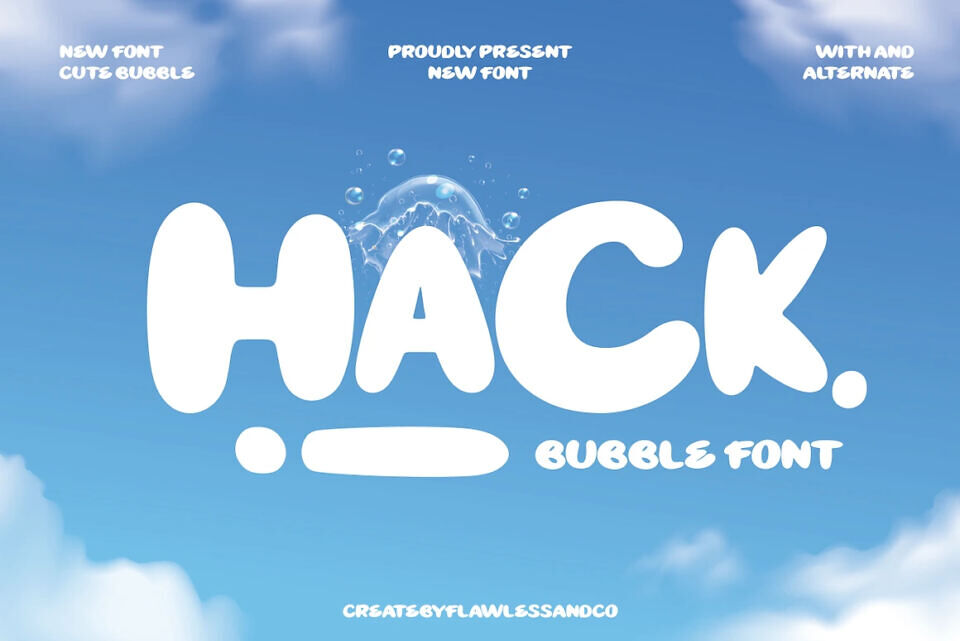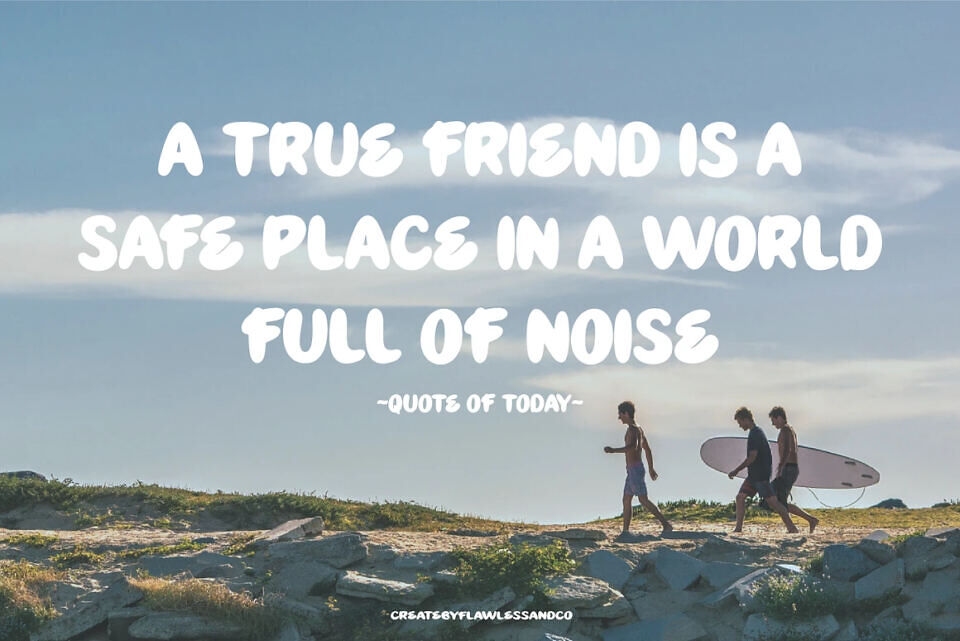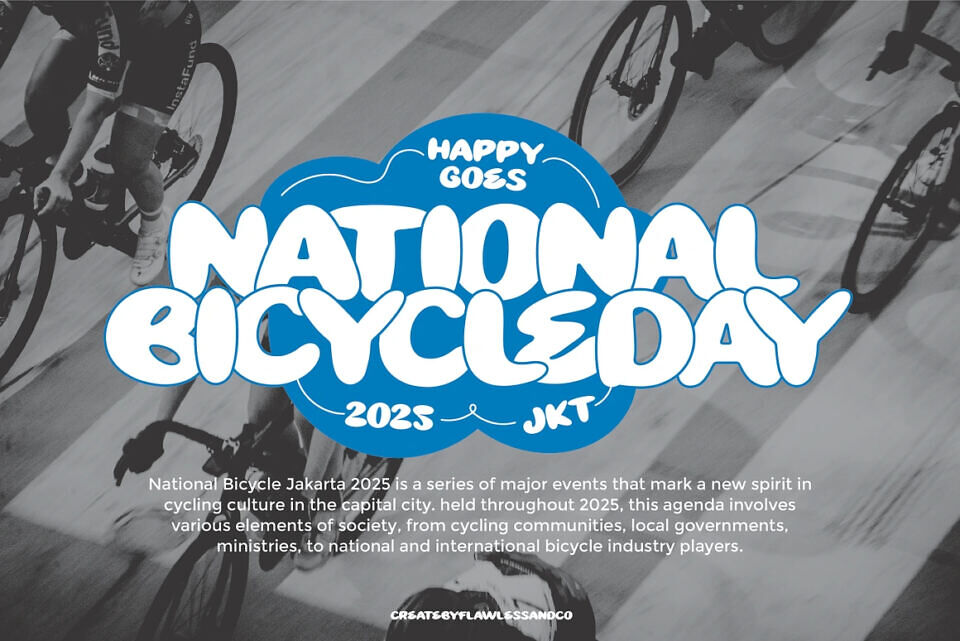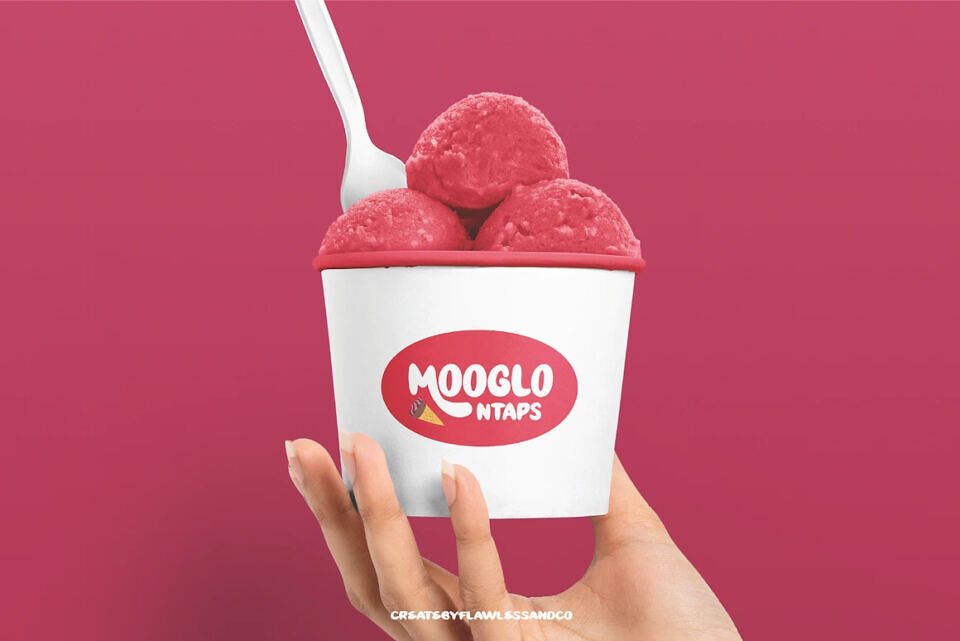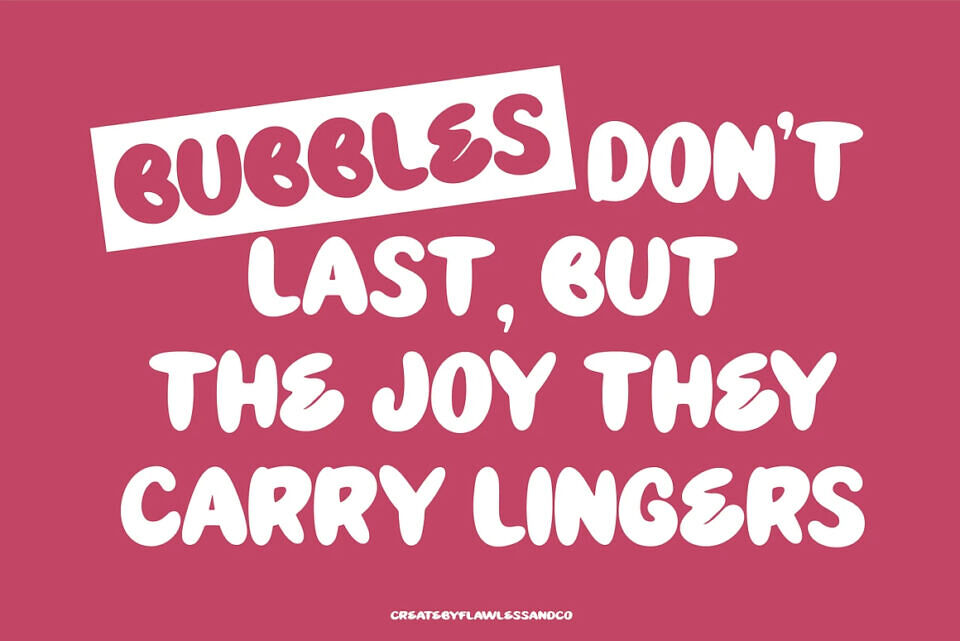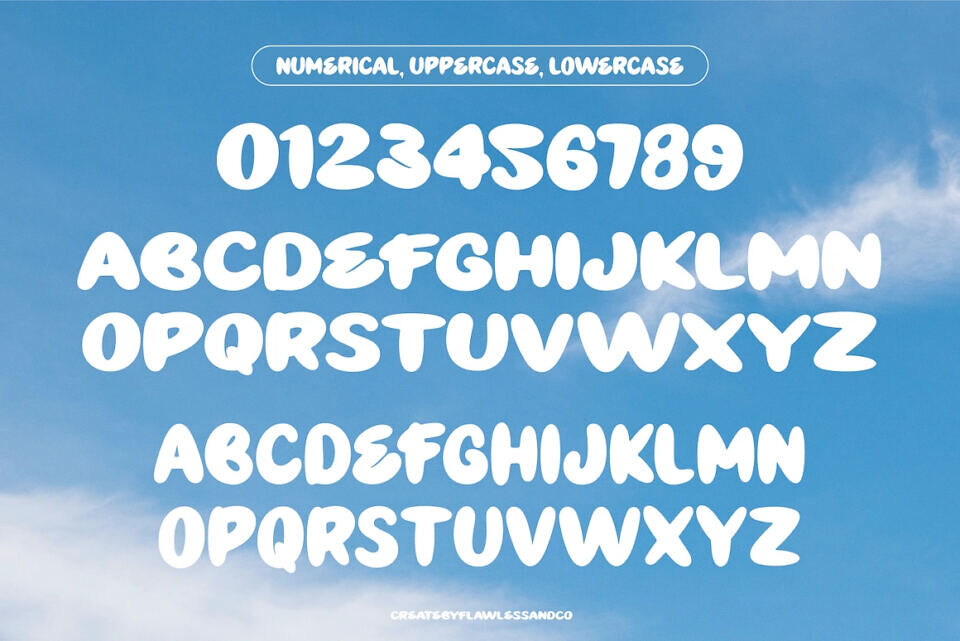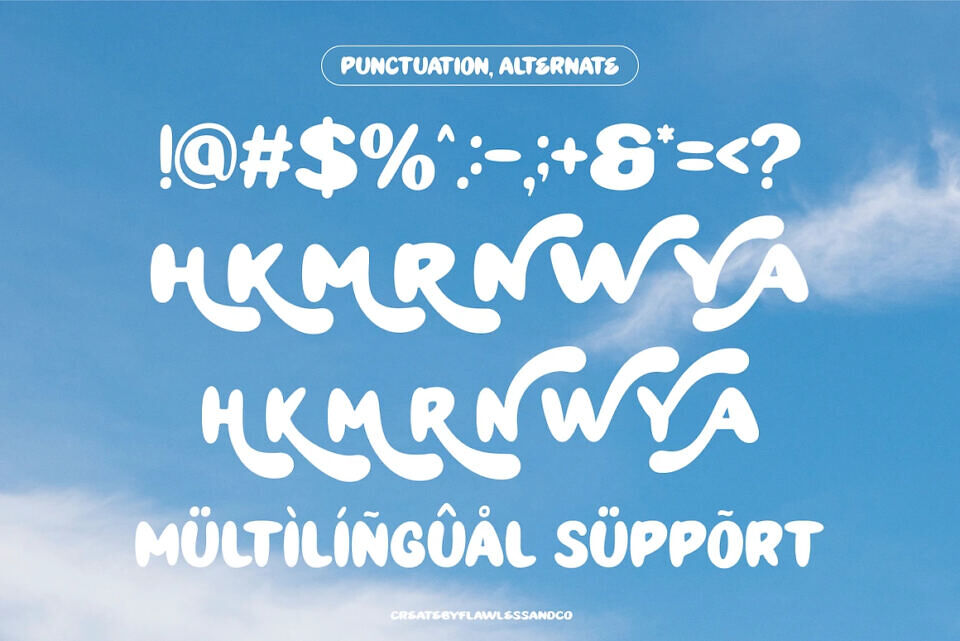
Hackbubble Font
Hackbubble is a playful bubble display font full of personality, featuring rounded and bold letterforms that radiate a fun, modern, and friendly vibe. Its cheerful curves and balanced proportions make it perfect for creative projects that want to stand out while staying approachable.
Whether for branding, product packaging, or social media designs, Hackbubble brings a lively and eye-catching touch. It also works beautifully for posters, invitations, and promotional materials that need positive energy and strong visual appeal.